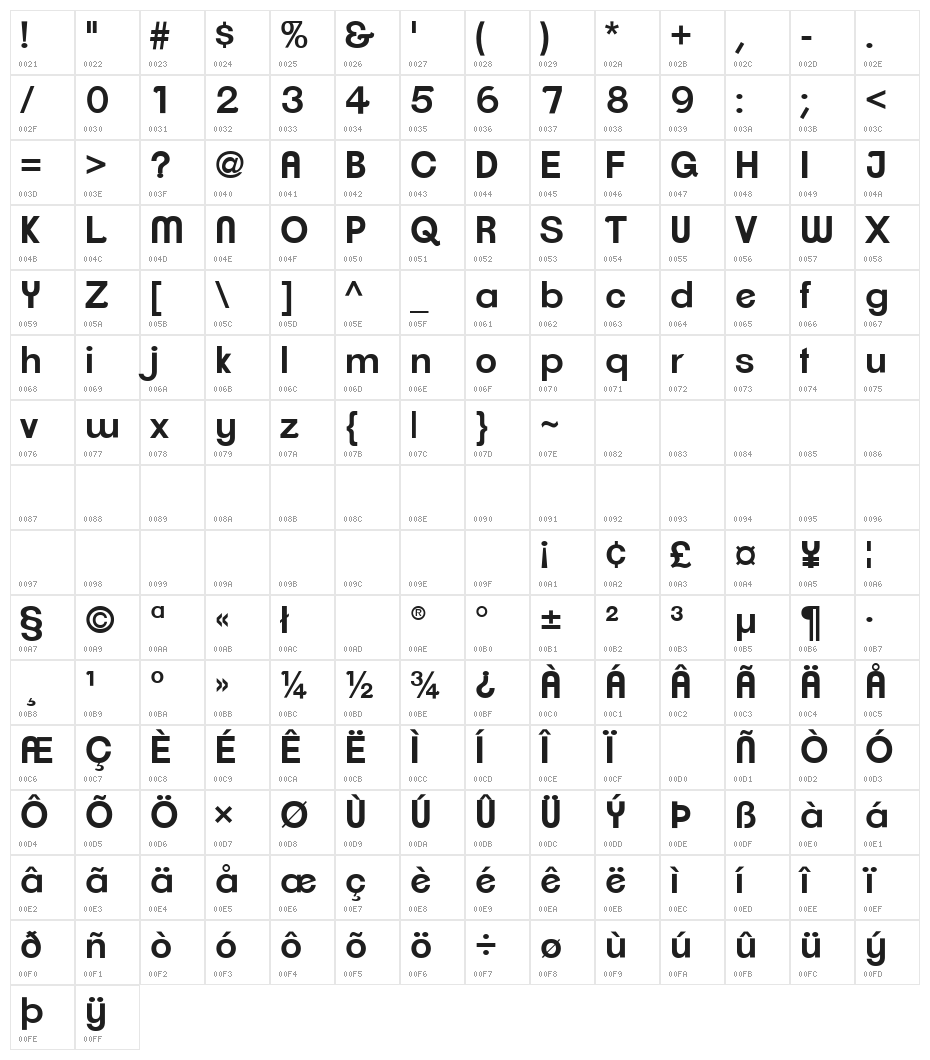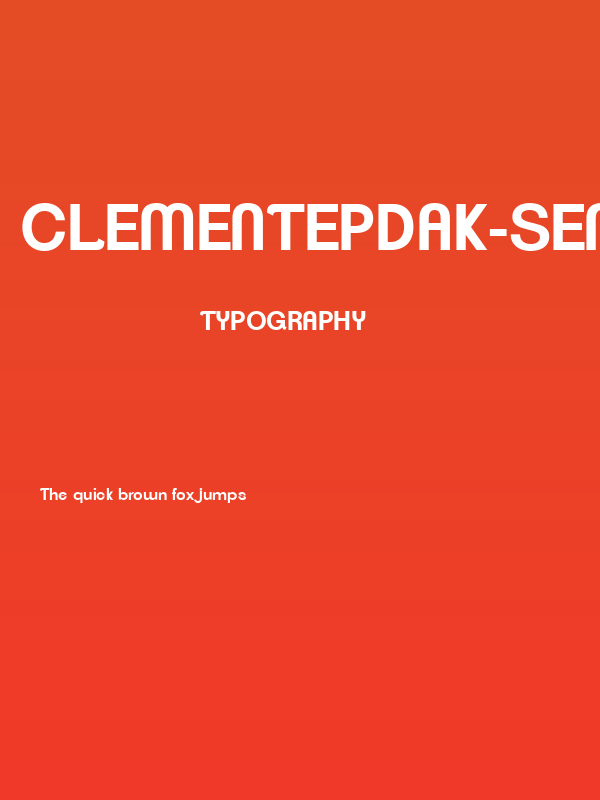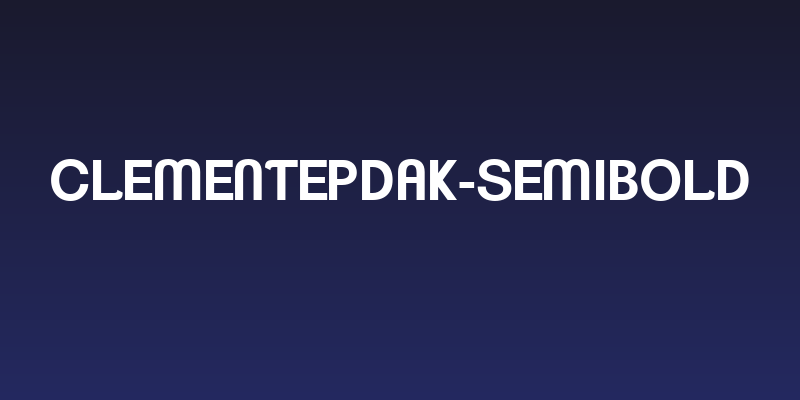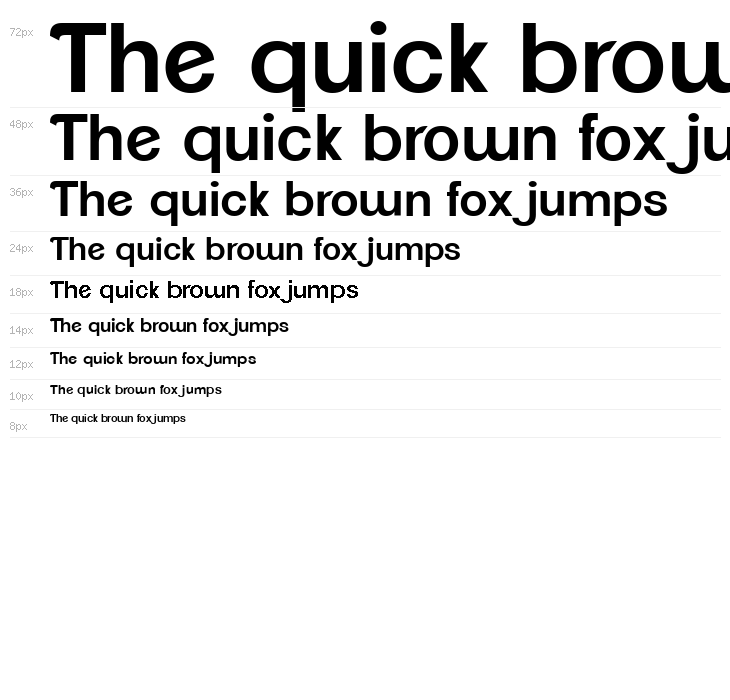
ClementePDak-SemiBold Font
ClementePDak-SemiBold Description
This font features a clean and modern sans-serif design with a semi-bold weight, providing a strong yet approachable appearance. The characters are well-proportioned with rounded edges, giving it a friendly and contemporary feel. The uppercase and lowercase letters maintain a consistent style, ensuring readability across various text sizes. The numerals are clear and distinct, making them suitable for both digital and print applications. Special characters are well-integrated, enhancing the font's versatility for different contexts.
| Proposed Projects | Ideal for branding, advertising, web design, and editorial projects where a modern and approachable look is desired. |